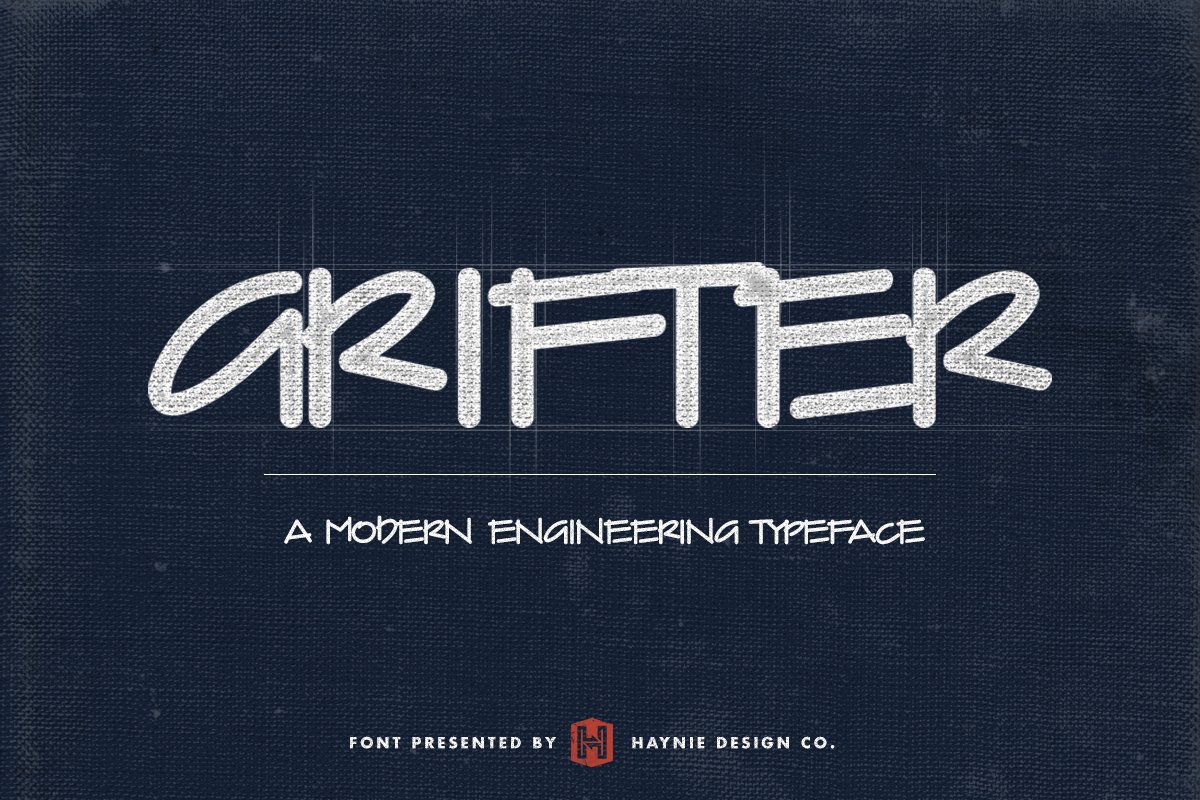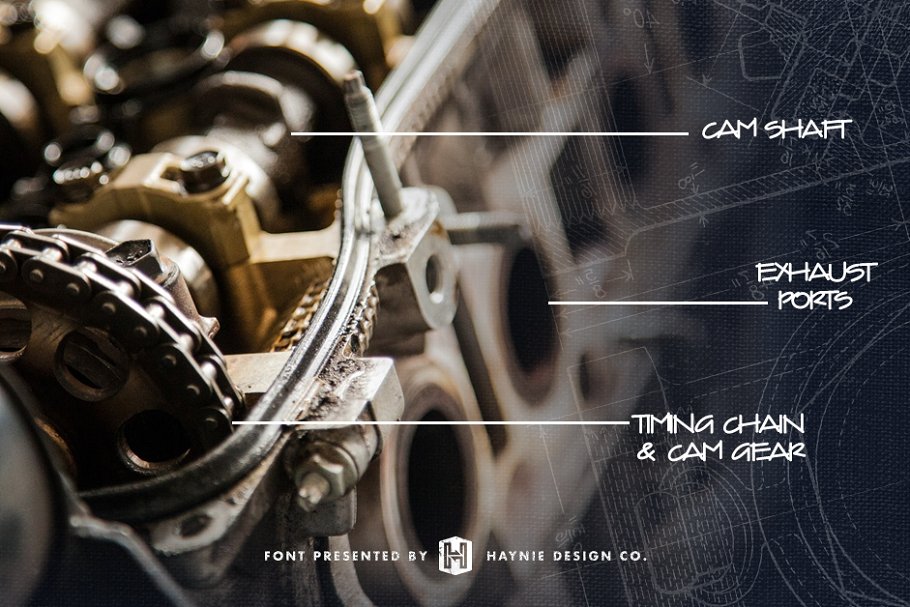
About the Grifter Architect Blueprint Writing
Introducing Grifter, a modern engineering typeface family inspired by the clean and consistent lettering found on architectural and drafting blueprints, FeaturesAll Caps Display TypefaceIncludes Both Regular & Thin VersionsUppercase With Lowercase AlternatesBasic Glyph Characters & NumbersOTF file forma